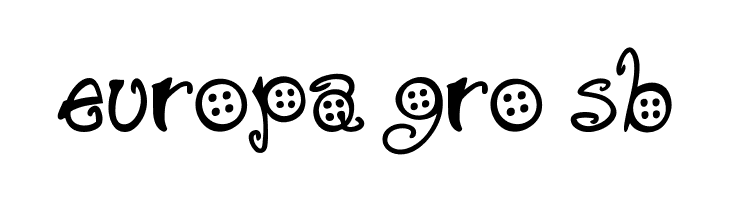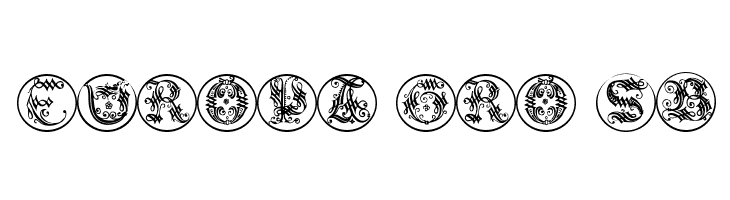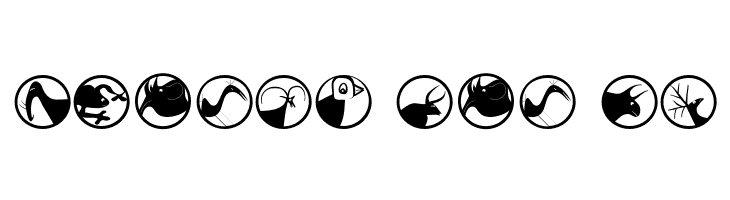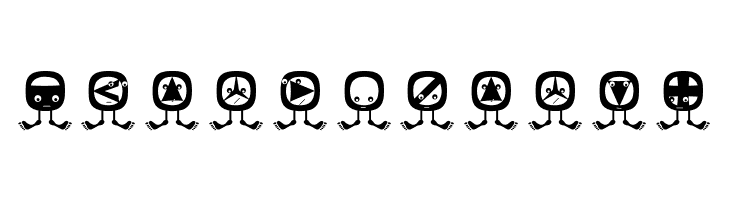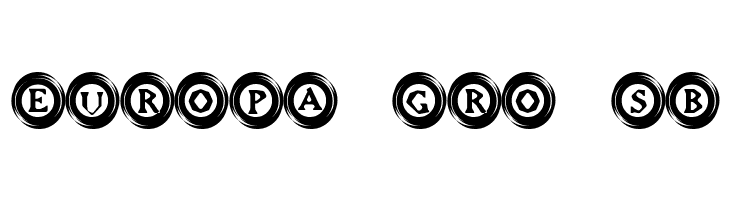
Playstation Buttons Font
Iconic font with PlayStation controller symbols and arrows.
Buttons & Patches Font
A whimsical, decorative font with button-like elements and a hand-drawn style.
Country Button Font
A decorative, patterned uppercase font with whimsical and artistic elements.
Elevator Buttons Font
A bold, circular font with a vintage, decorative style reminiscent of elevator buttons.
ButtonHilightFLF Font
Font by Casady & Greene
A bold, geometric font with strong horizontal lines and a modern aesthetic.
ButtonPlainFLF Font
Font by Casady & Greene
A bold, geometric font with a modern, industrial aesthetic.
Button Font
A bold, playful font with a 3D shadow effect and rounded characters.
DJB Belly Button-Outtie Font
A playful, bold font with rounded, outlined characters perfect for whimsical designs.
Buttons the Bear 3D Font
A playful, hand-drawn font with bold outlines and a 3D effect.
Falling Button Font
A bold, cursive font with interconnected characters and a modern calligraphic style.
Elevator Buttons Two Font
A bold, decorative font with characters encased in circular button designs, featuring a vintage serif style.
Buttons the Bear Light Font
A playful, casual handwritten font with uneven strokes and a friendly vibe.
Buttons the Bear Font
A playful, bold handwritten font with a casual and lively style.
Buttons and Switches JL Font
A collection of classic audio and video equipment control icons in a monochromatic style.
Buttons the Bear Light Italic Font
A playful, light italic handwritten font with fluid strokes.
ButtonButton Font
A bold, abstract shape-based decorative font.